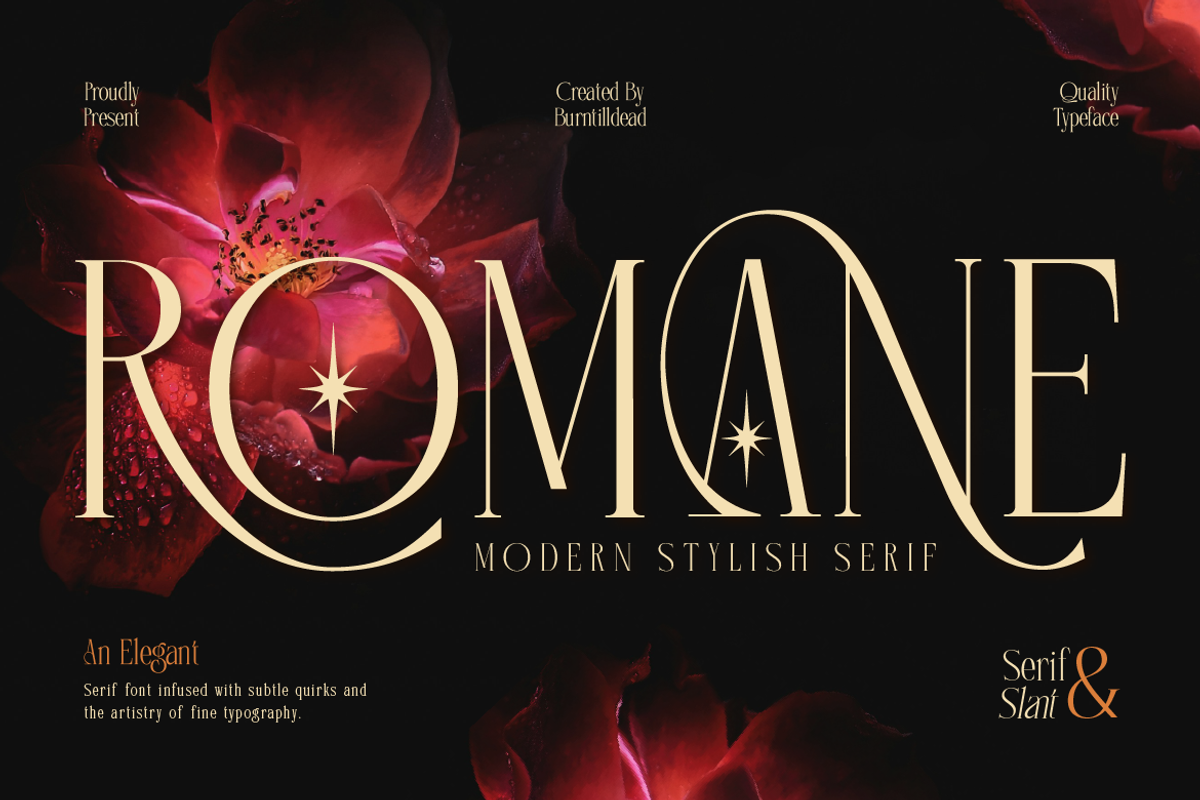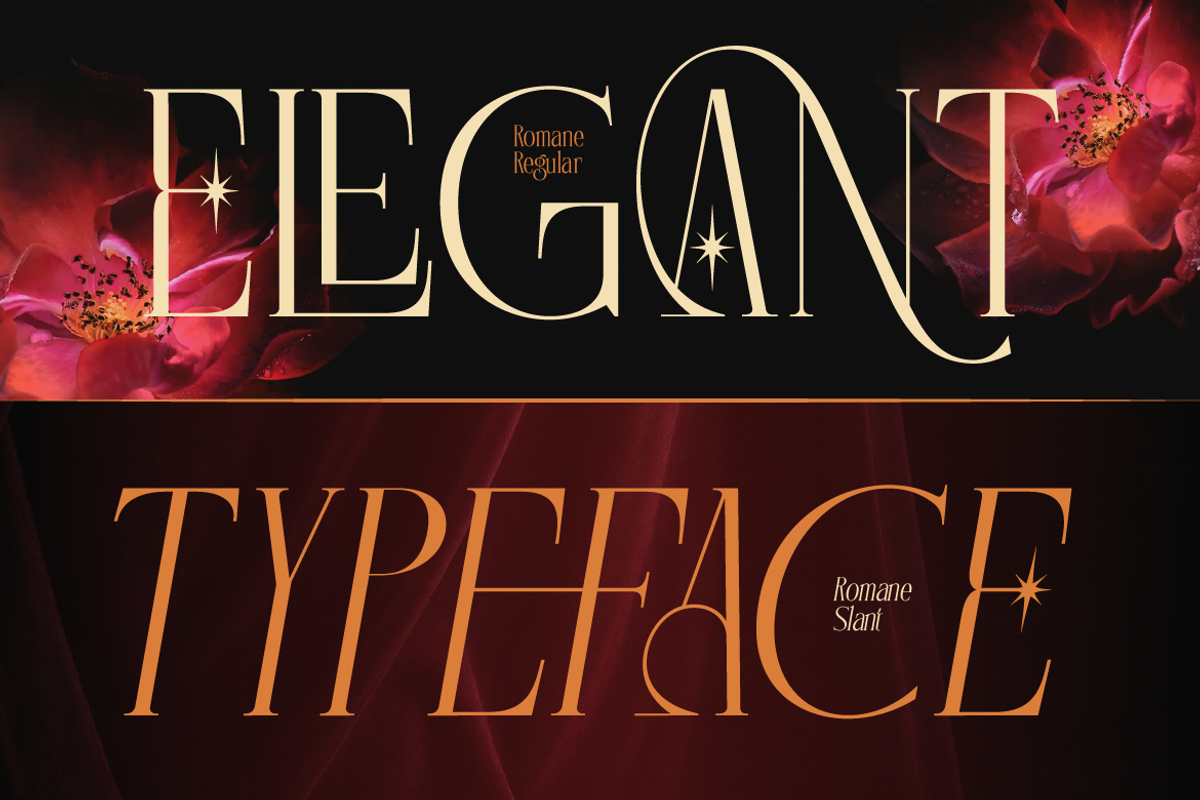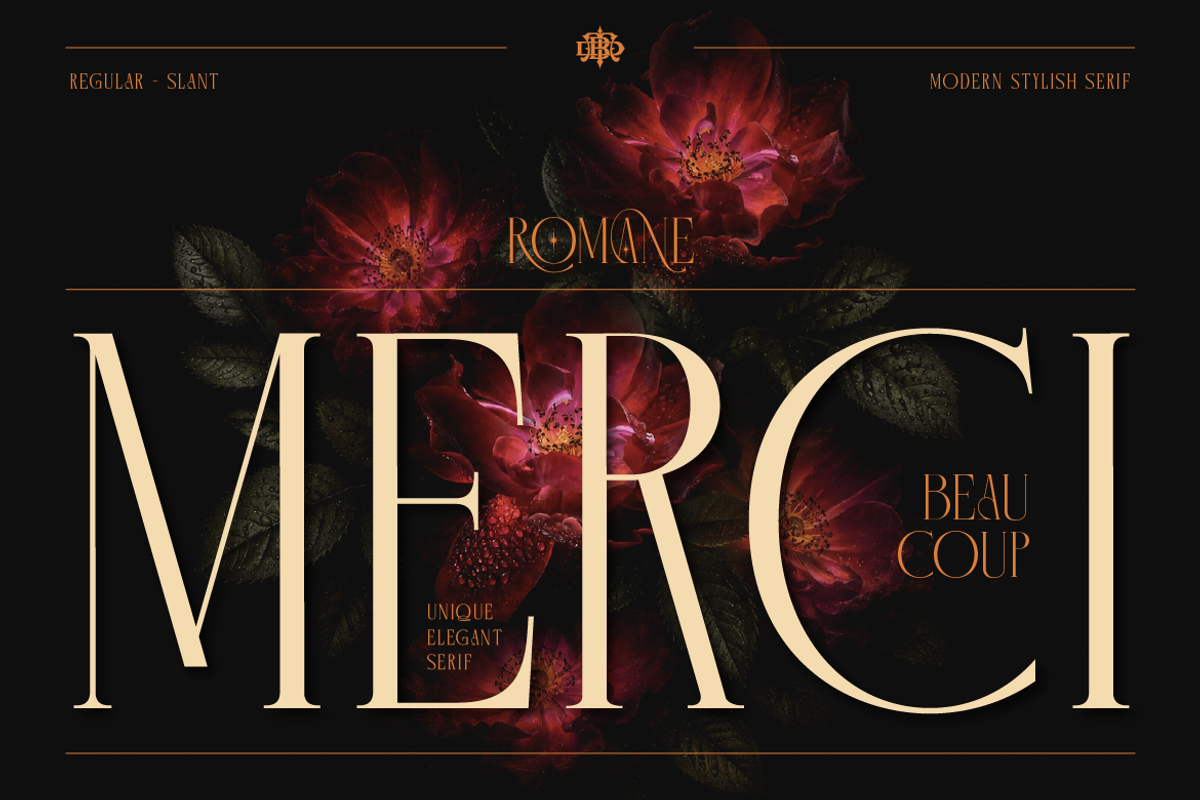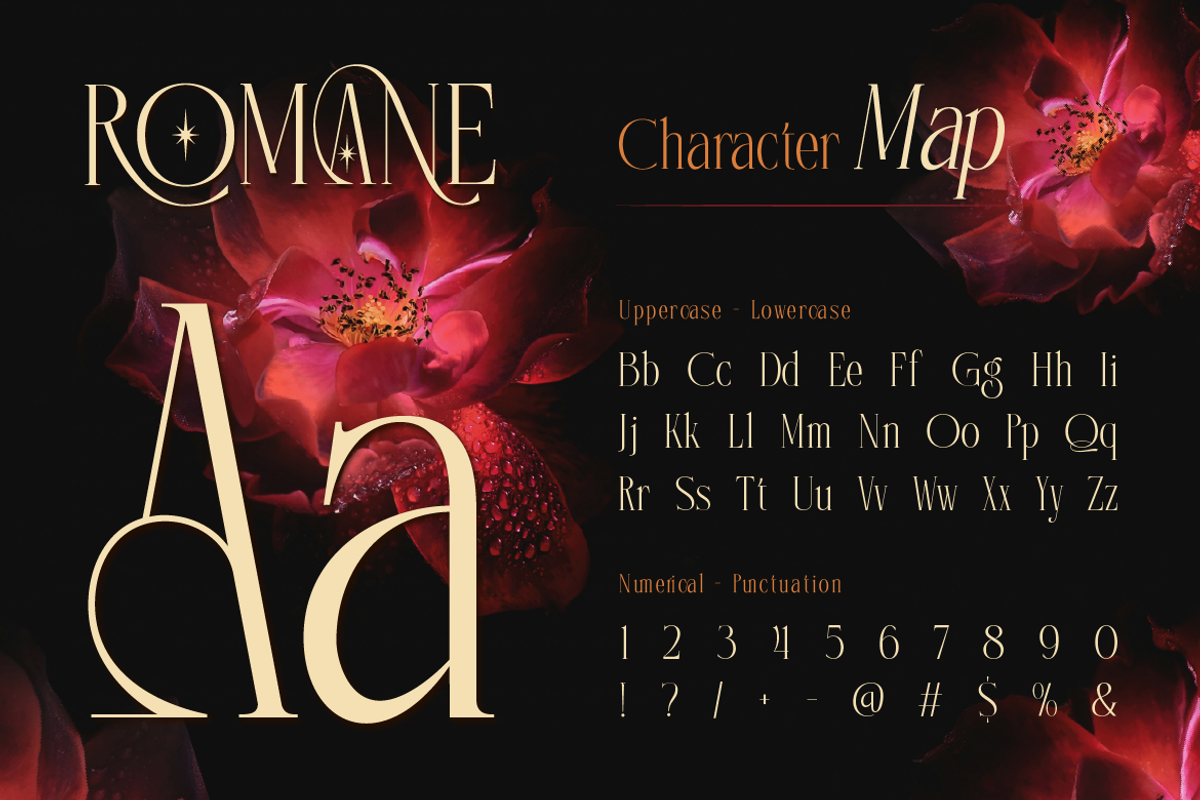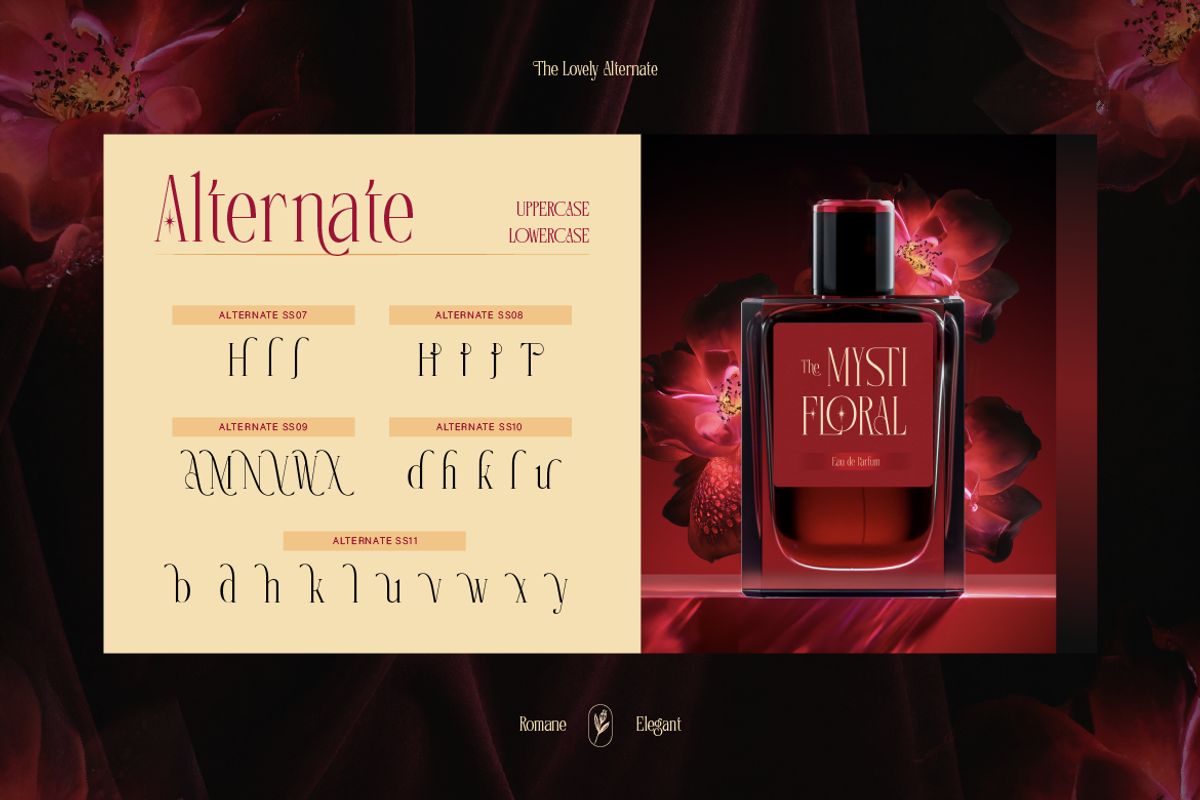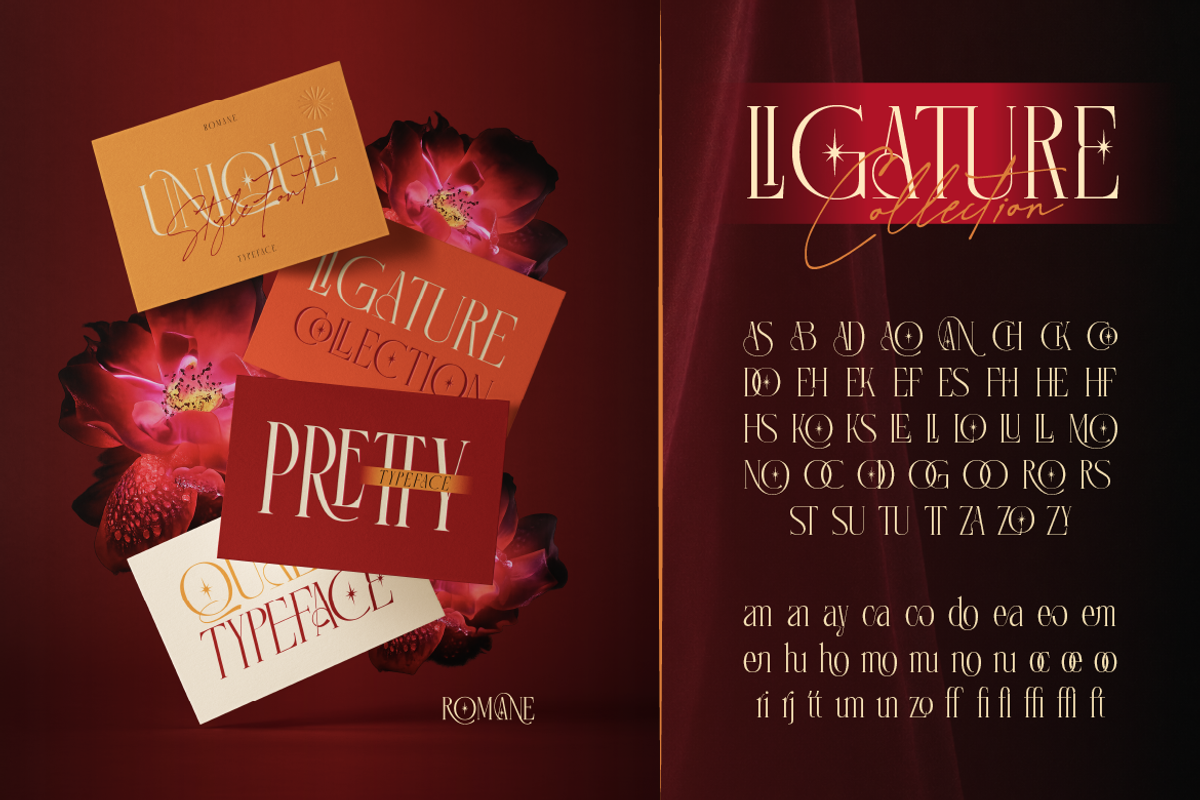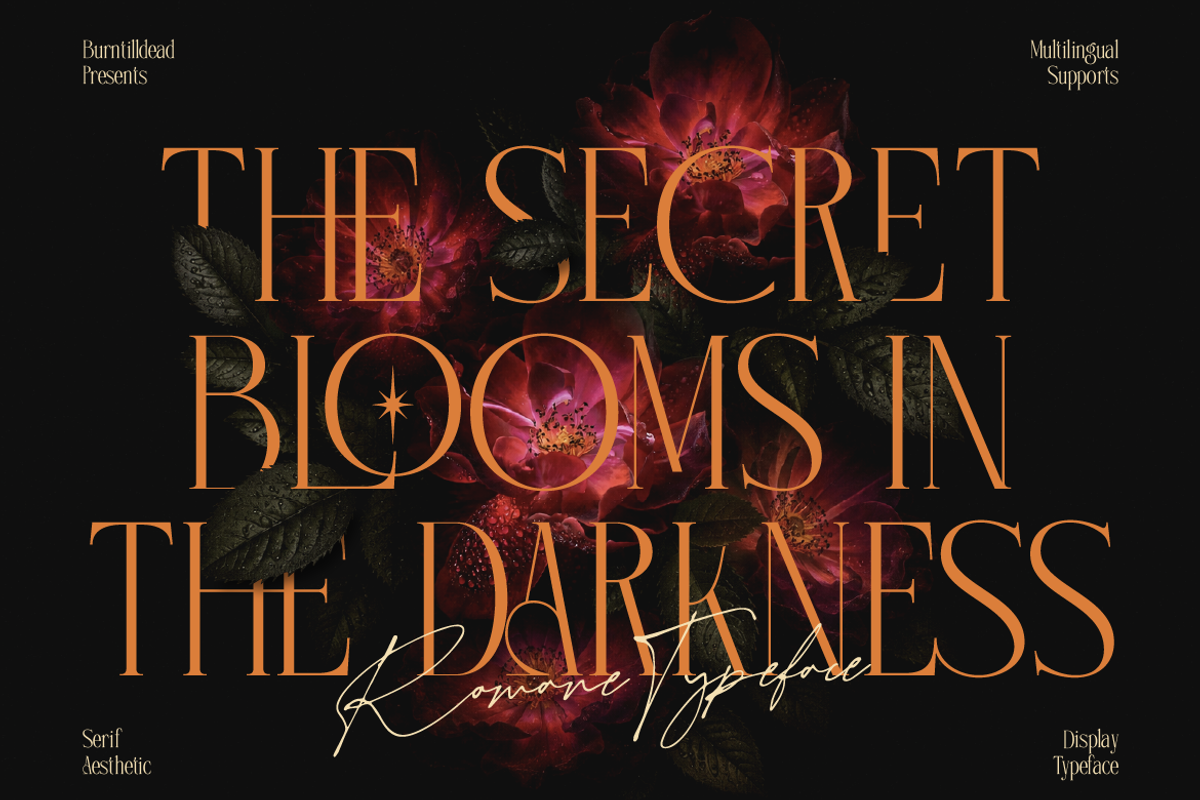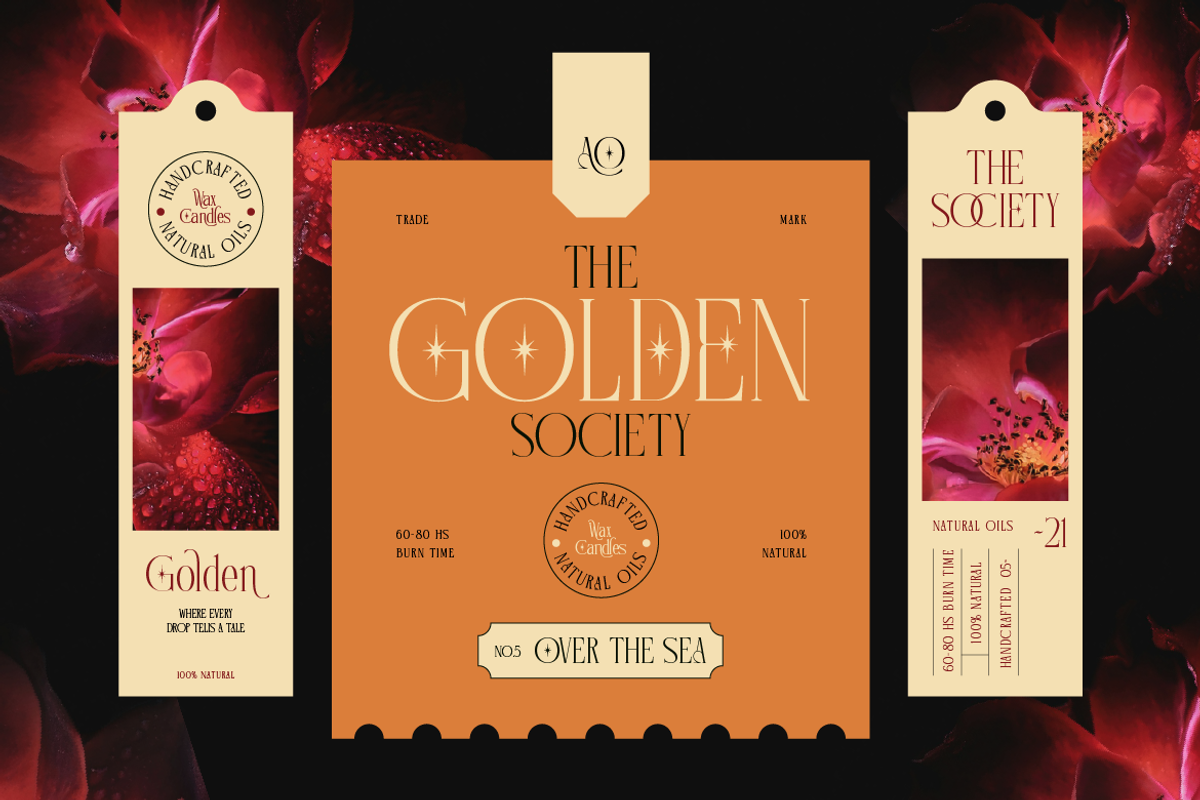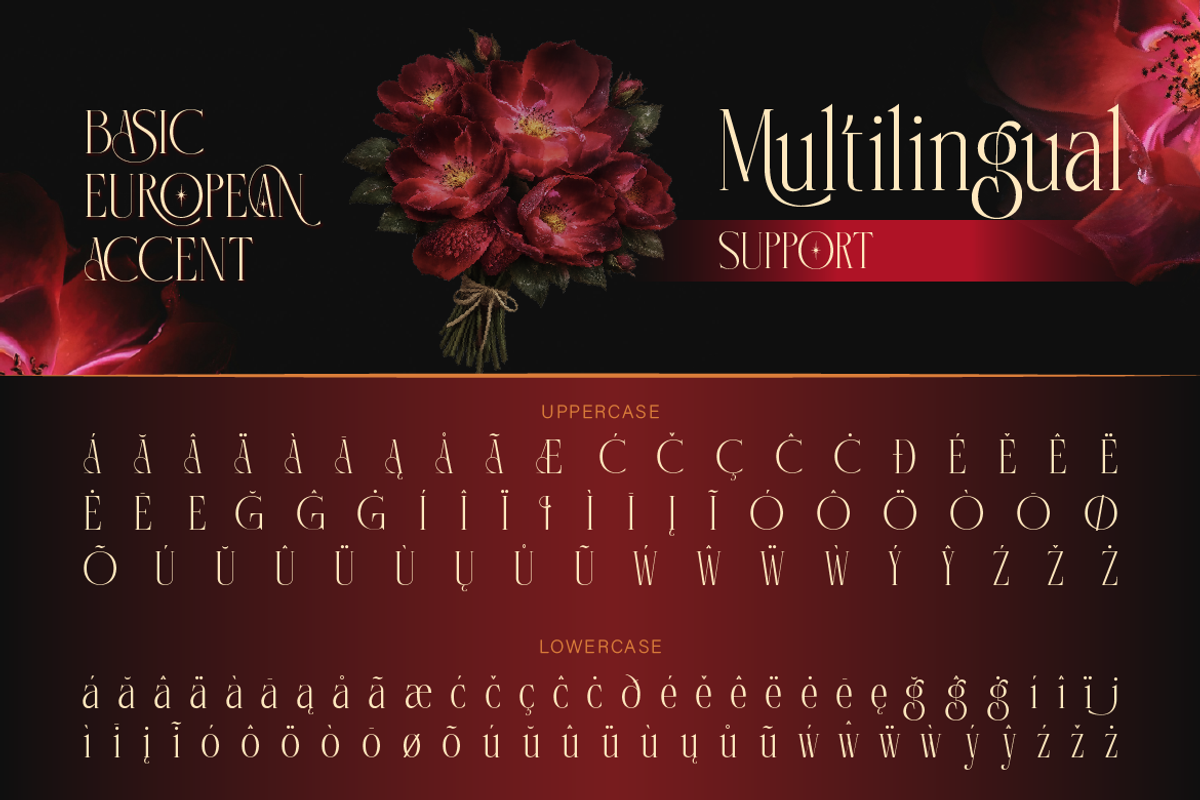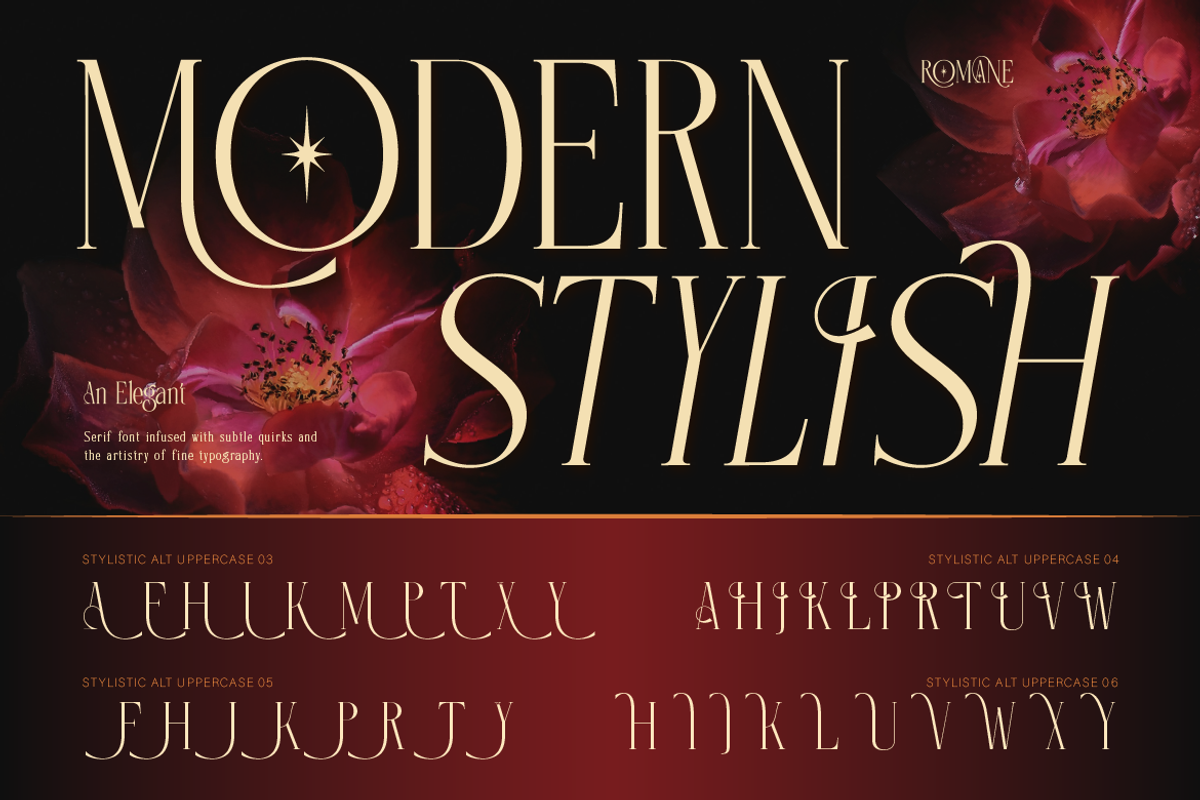
Romane - Elegant Serif
Romane, a modern serif typeface crafted with elegance, character, and a subtle touch of vintage romance. Featuring smooth curves, refined contrast, and delicate detailing, Romane brings timeless sophistication to any design project.
Romane comes in two beautiful styles — Regular and Slant — giving you the flexibility to mix classic elegance with a graceful, romantic flow. Packed with stylistic alternates, elegant ligatures, multilingual support, numerals, and punctuation, this typeface is designed to elevate your branding, editorial, and lifestyle projects with a luxurious yet approachable feel.
Whether you're designing a wedding invitation, a fashion logo, or a premium product label, Romane adds instant charm and sophistication to your work.
A – Z set (Uppercase & Lowercase)
Number
Romane characters Map